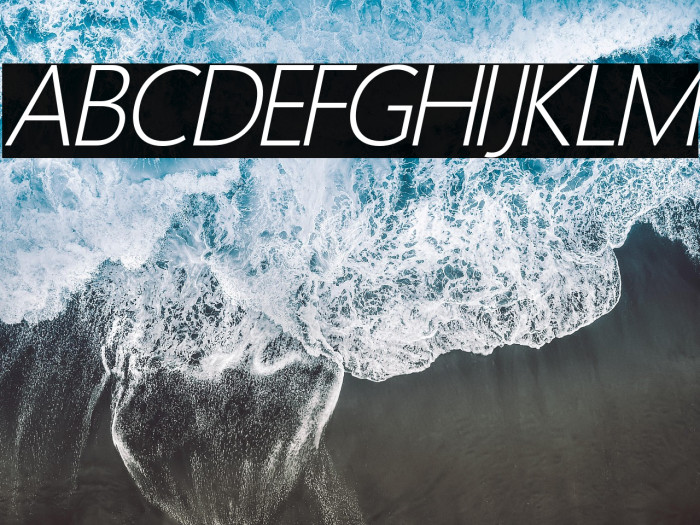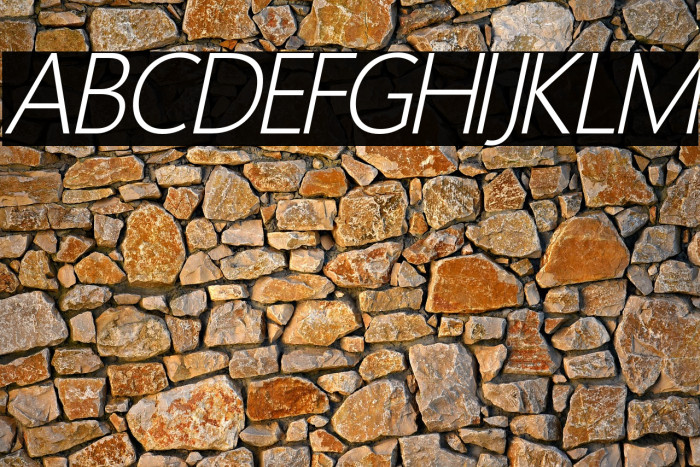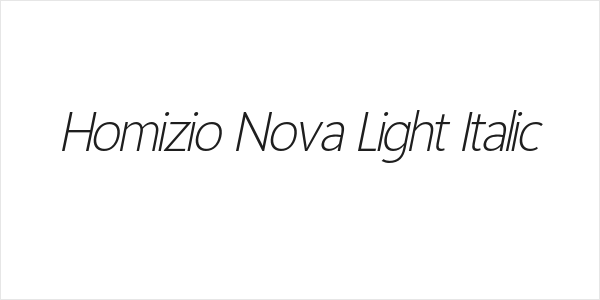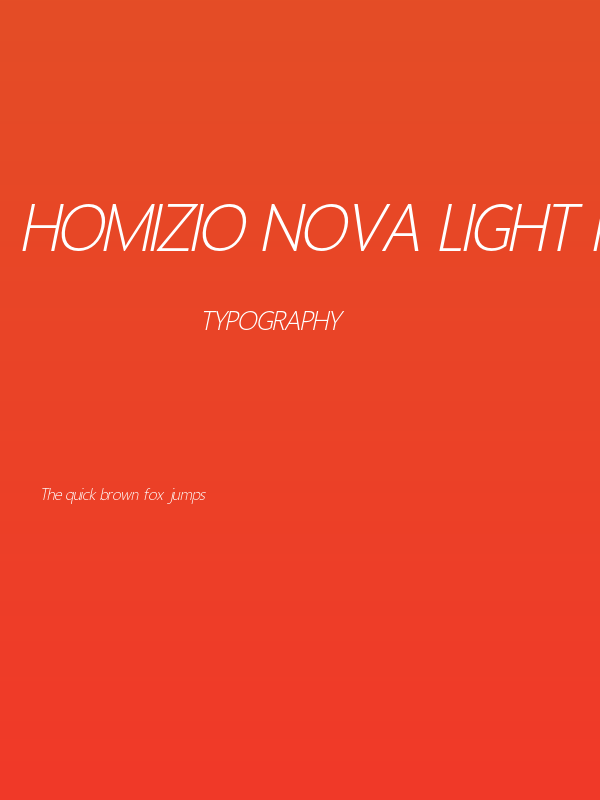
Homizio Nova Light Italic Font
Homizio Nova Light Italic Description
This font features a sleek and modern design with a light weight and italic style. The characters are elegantly slanted, providing a sense of motion and fluidity. The sans-serif design ensures a clean and uncluttered appearance, making it highly readable. The strokes are consistent in thickness, contributing to a harmonious look across all characters. The font's overall aesthetic is contemporary, with a subtle sophistication that makes it versatile for various applications. The spacing between characters is normal, ensuring clarity and legibility.
| Proposed Projects | Ideal for modern branding, editorial design, digital interfaces, and elegant invitations. |